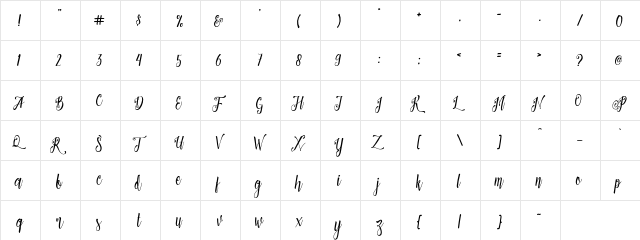
Patronia Script Regular
| Foundry | Twicolabs Fontdation |
| Designer | Twicolabs Fontdation |
Design Context for Patronia Script Typeface
Patronia Script brings a calligraphic fluidity to the page — its connecting strokes and expressive curves give it an unmistakably human quality.
Font Pairing: Combine Patronia Script with a simple geometric sans for maximum contrast — the tension between flowing curves and clean structure is a classic typographic pairing.
Pro Tip: Pair Patronia Script with a clean sans-serif for supporting text. The contrast between fluid script and geometric structure creates an elegant typographic hierarchy.